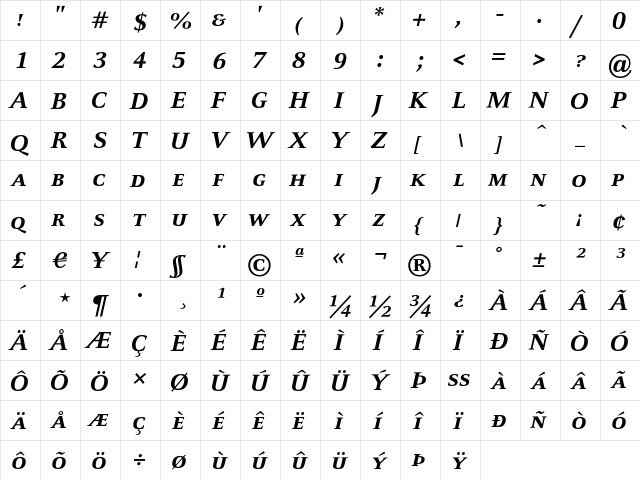
CelesteST SCBoldItalic
Design Context for CelesteST Typeface
CelesteST is a composed and adaptable typeface that performs quietly and consistently across a wide range of design contexts. The slanted form adds forward momentum and visual energy. The heavy weight commands attention and anchors typographic hierarchies.
Pro Tip: Try CelesteST for annotation and caption copy alongside an upright companion — the contrast in angle creates a dynamic but ordered typographic system.